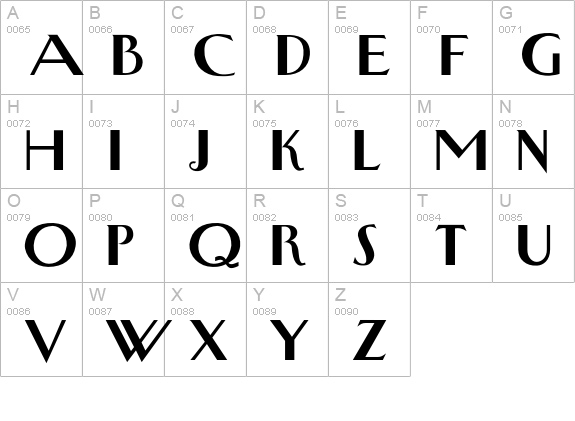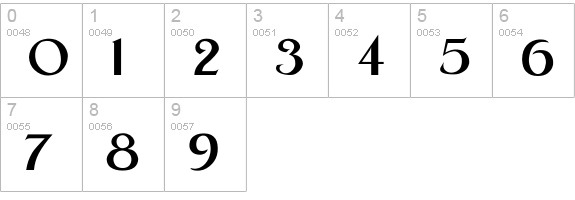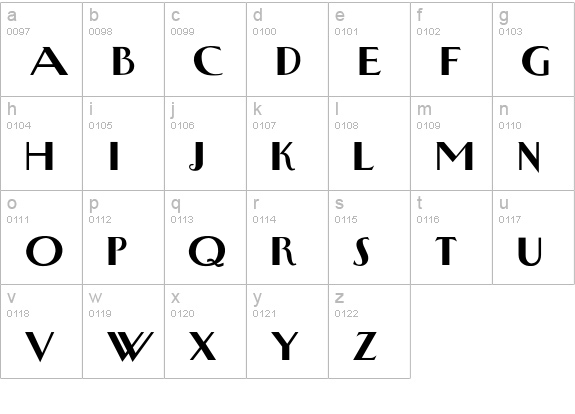
NewyorkertypeBold Font Details
Introducing NewyorkertypeBold font, a sleek and modern typeface that exudes confidence and sophistication. With its bold and striking design, this font is perfect for making a statement in your designs. Whether you're creating a poster, logo, or website, NewyorkertypeBold will give your projects a bold and memorable look. Best of all, NewyorkertypeBold is available for free download at FontsMarket.com. This means you can easily access this stylish font and use it in your projects without any cost. Don't miss out on this opportunity to enhance your designs with the striking NewyorkertypeBold font. Download it now and make your creations stand out!